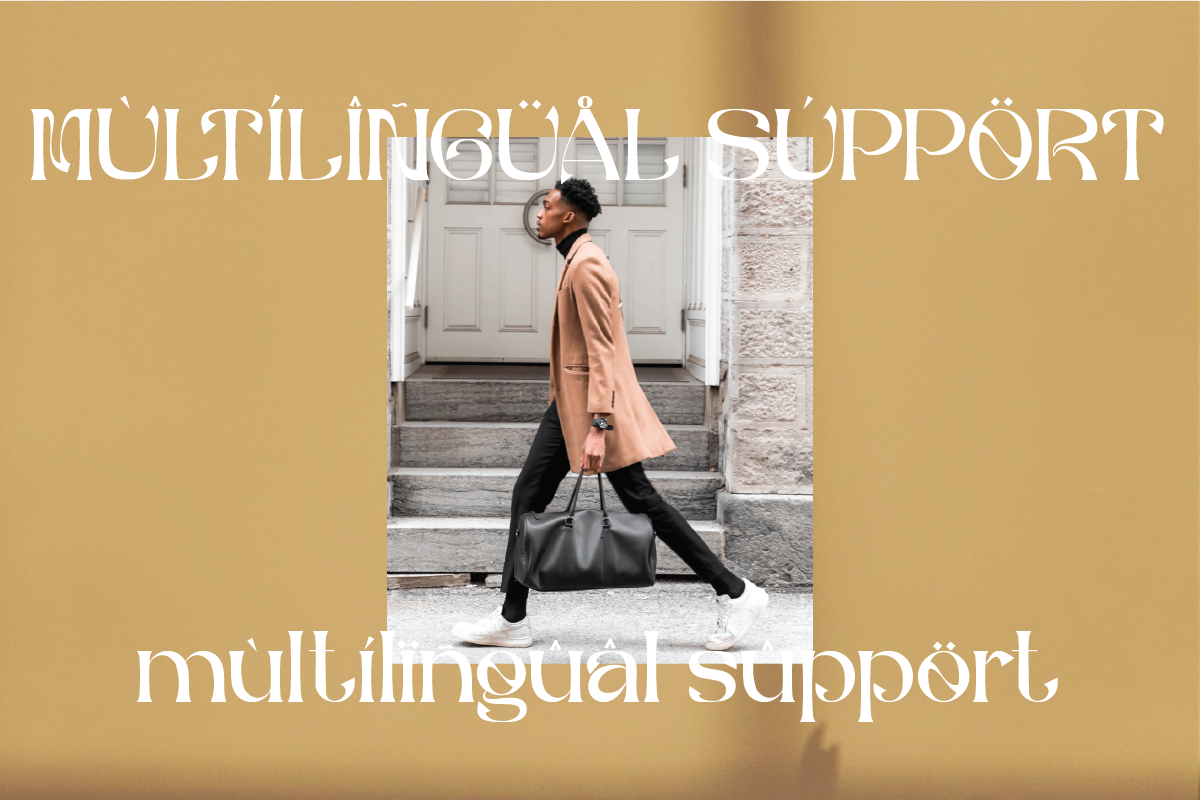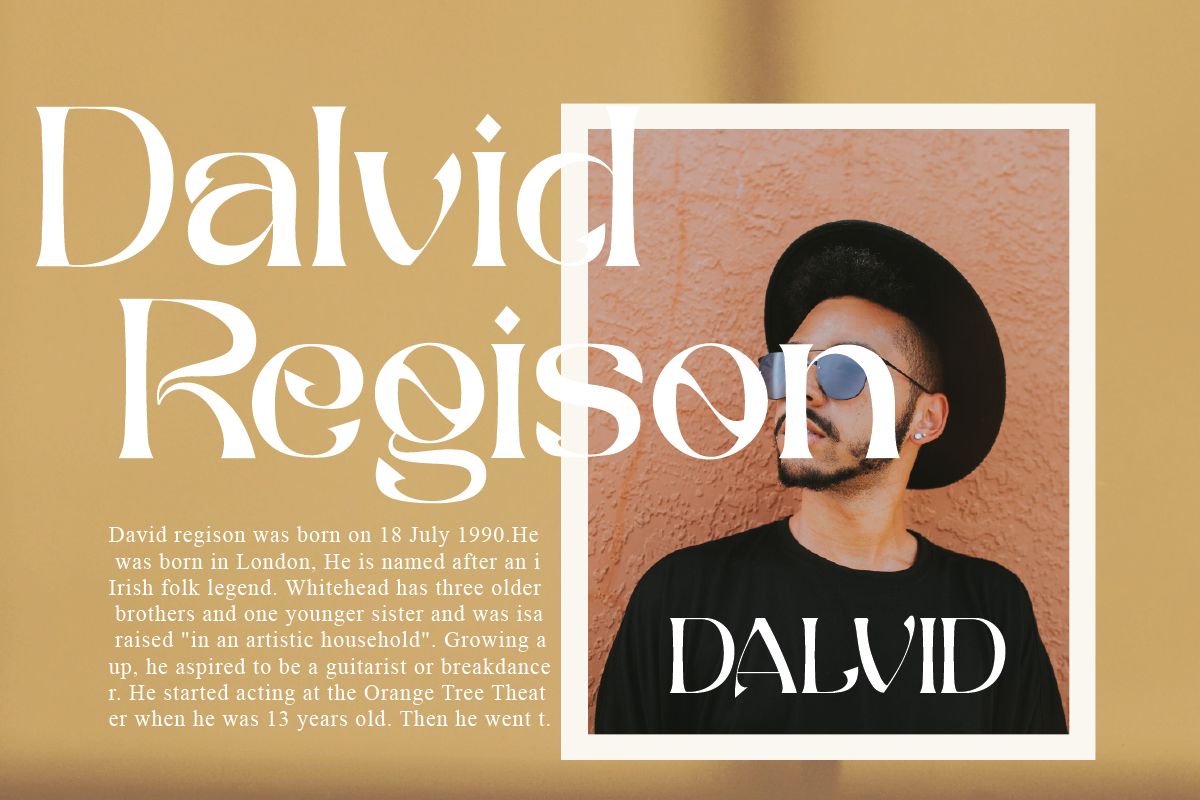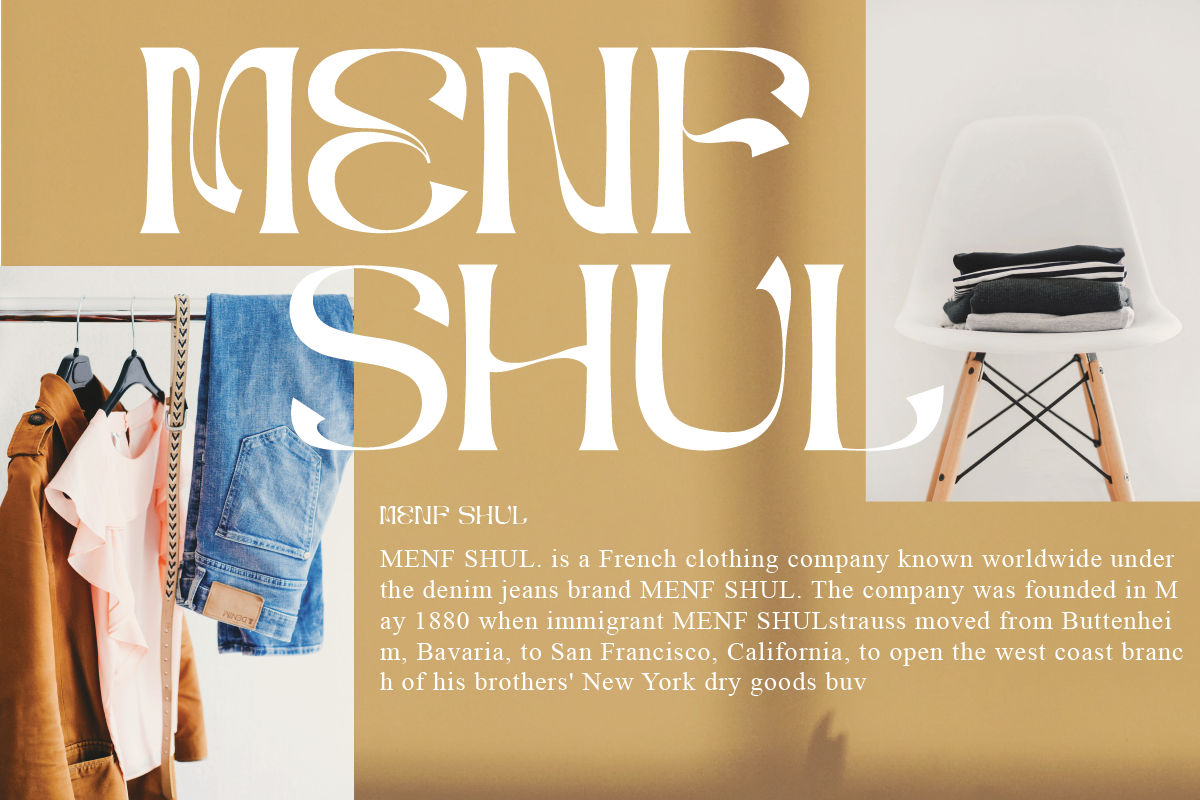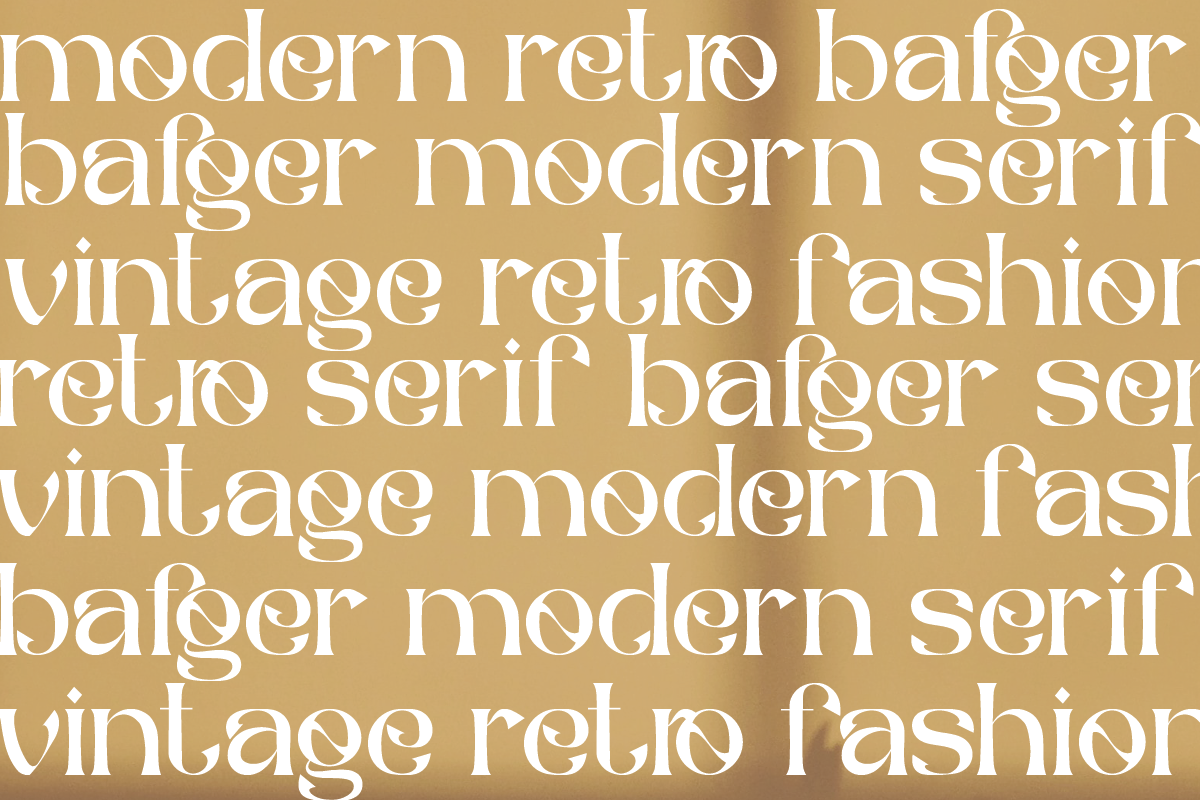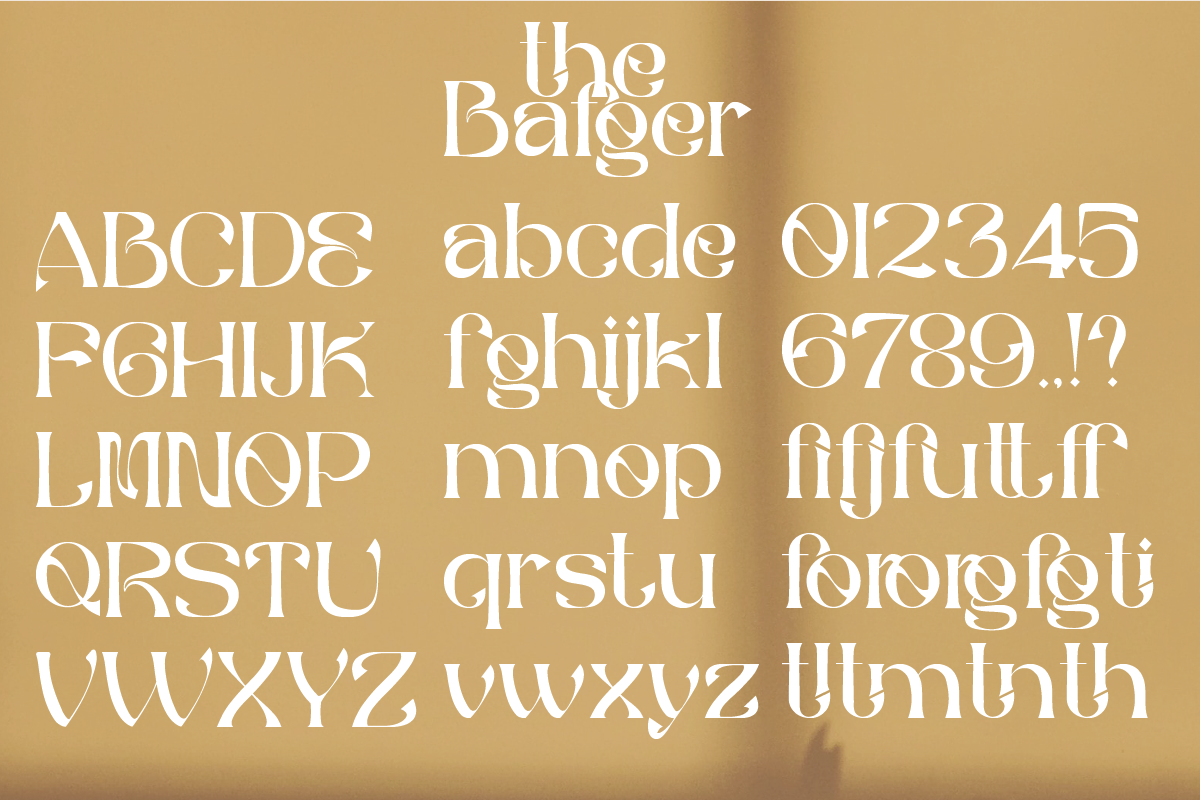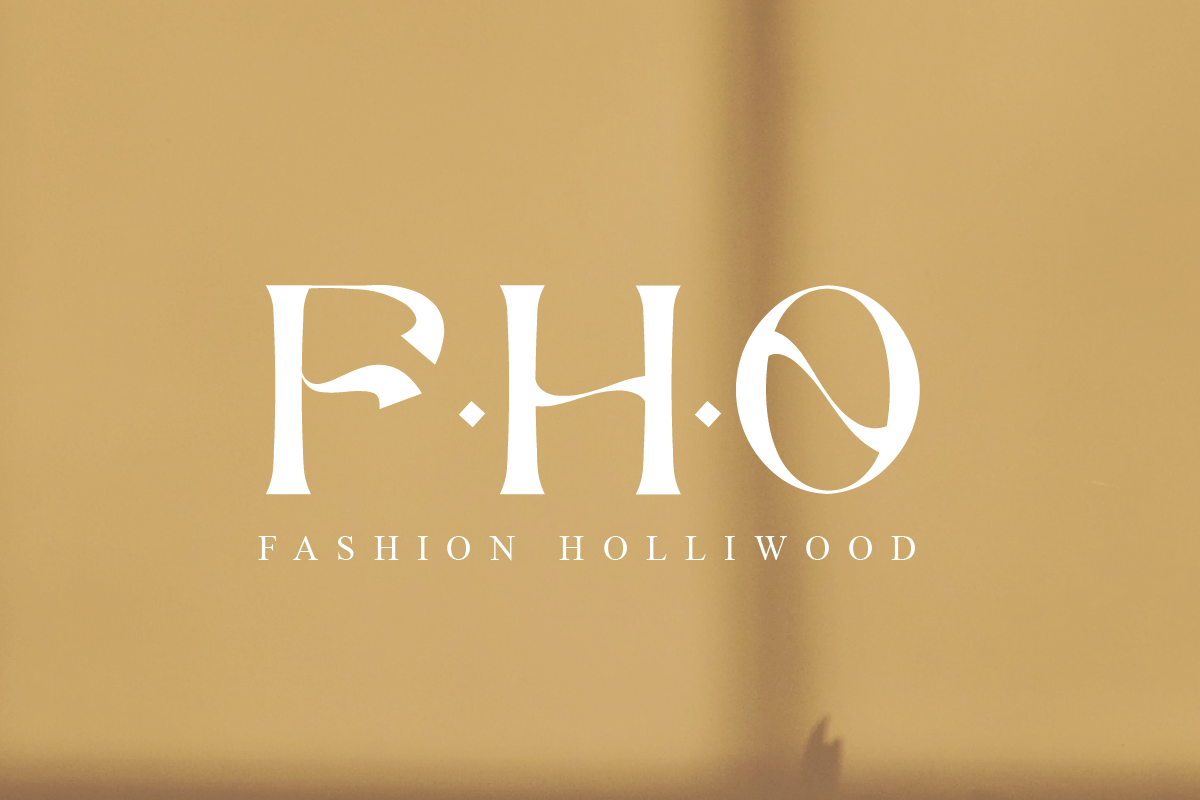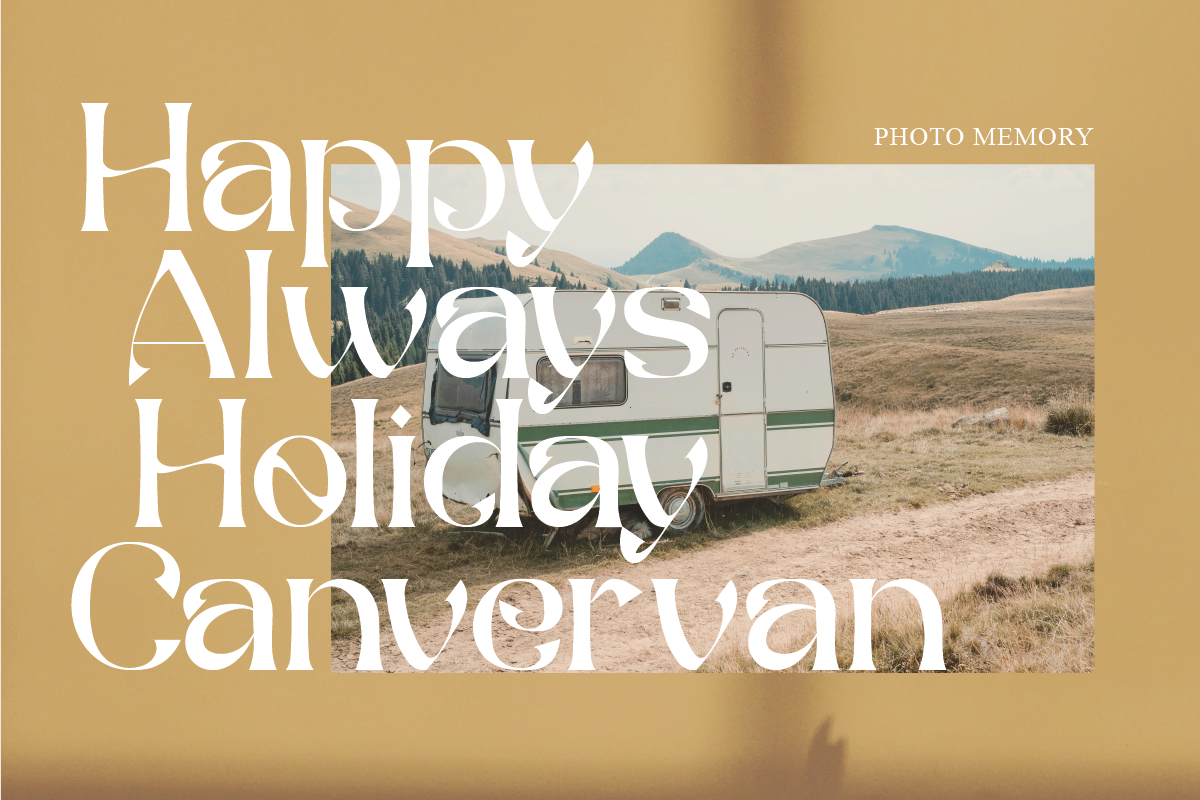
The Bafger
The Bafger is modern vintage serif font, and The Bafger features unique and modern serif look and feel.is a fancy and modern serif font will elevate a wide variety of projects, from logos and stationery to magazine covers and social media posts. This typeface will take your designs to the next level!